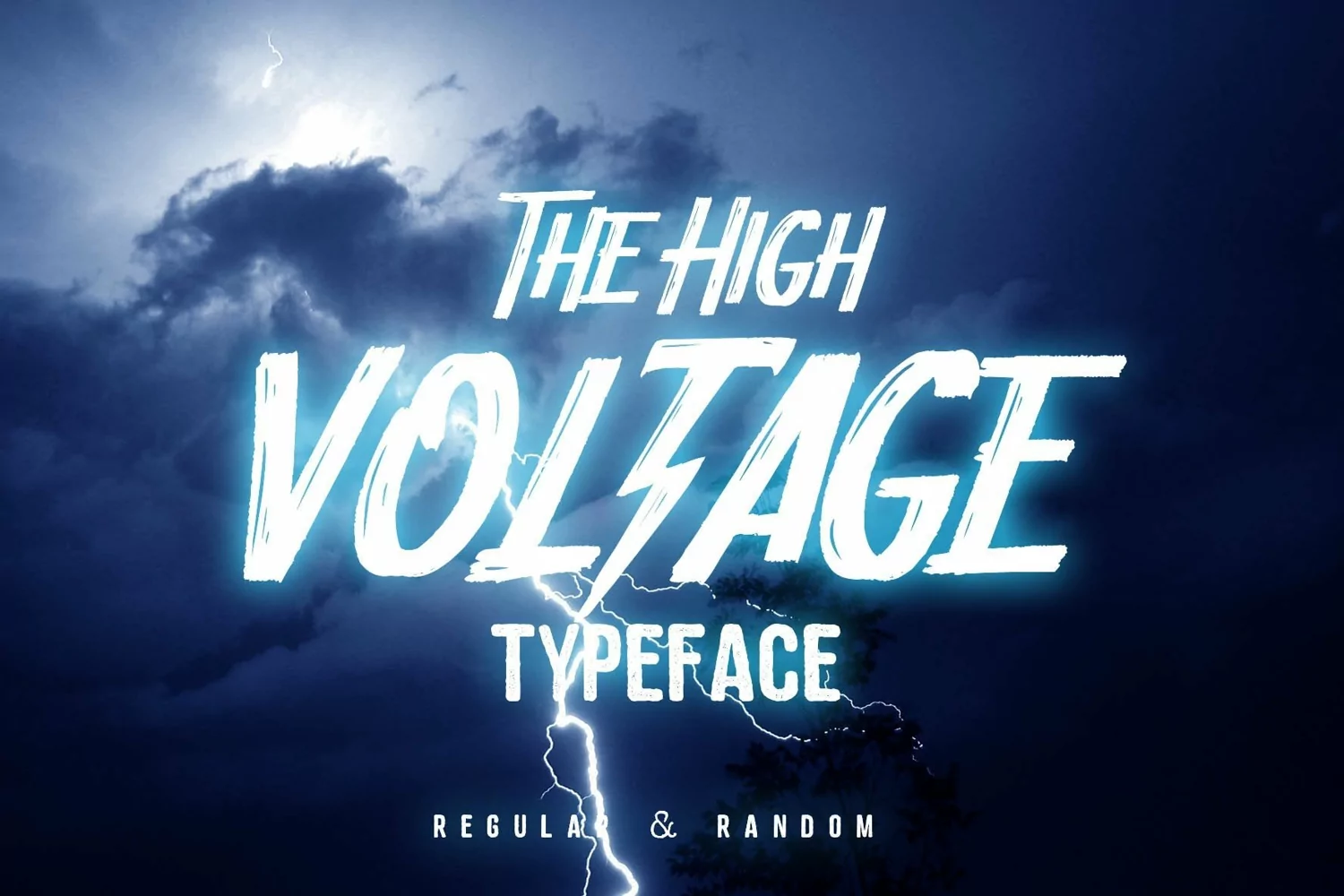
Web Font HIGH VOLTAGE Typeface
The High Voltage Typeface
A handmade typeface presented by Shirongampus studio. The High Voltage is suitable for your awesome works (Brands, Poster, Logo, Advertisement, etc)